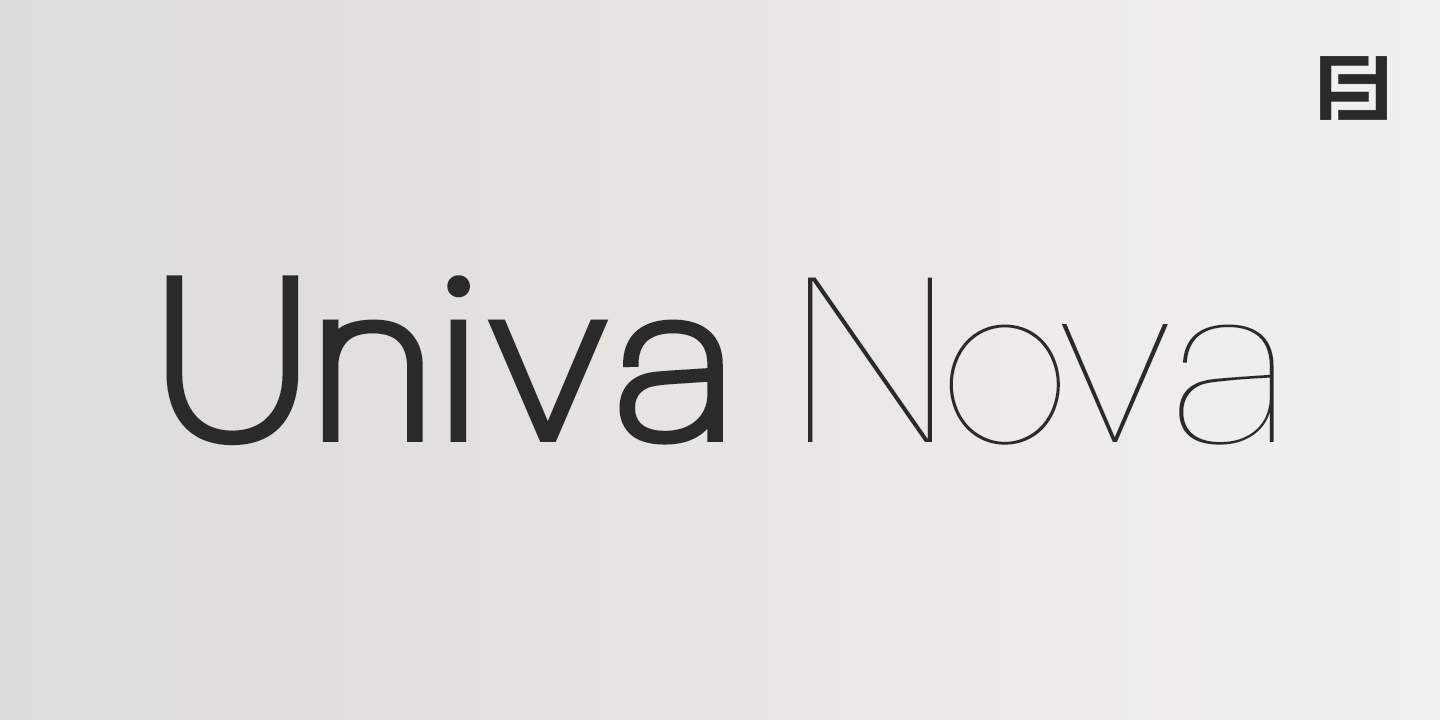
Univa Nova Font is perfect for modern tech startups, innovative university branding, cutting-edge research publications, futuristic corporate presentations, progressive educational materials, contemporary academic journals, forward-thinking institutional signage, and sophisticated scientific campaign designs.
This font is exciting because it embodies academic innovation with scholarly precision and contemporary sophistication. Univa Nova Font features clean, intellectual letterforms with modern university elegance that capture the essence of higher education and research excellence, making it ideal for projects that require authentic academic character and educational authority.
The Univa Nova Font family includes regular, light, medium, bold, and condensed variants, along with academic alternates and scholarly ligatures that enhance its educational character. Each weight maintains the font's intellectual aesthetic while providing different levels of academic expression for various educational and institutional design applications.
Whether you're developing prestigious educational brands, creating compelling academic materials, or designing innovative university campaigns, Univa Nova Font Free Download delivers exceptional authority and academic appeal. Its distinctive scholarly style makes it an excellent choice for designers seeking to add genuine educational credibility and institutional sophistication to their projects. The font's versatility extends from university branding to academic publication design, ensuring consistent performance across all educational applications. With its intellectually crafted letterforms and academic proportions, this typeface provides professional results that inspire learning and establish powerful educational presence with its unmistakable scholarly character and contemporary academic elegance.